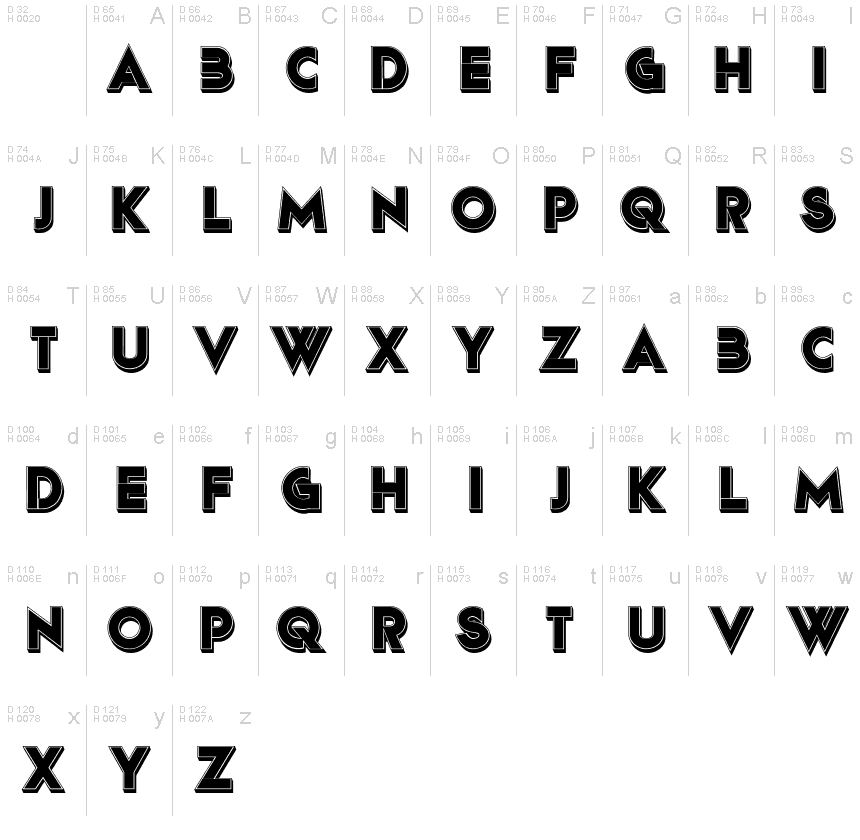
Epoca Regular
Epoca is an extra-bold sans serif font designed by Vladimir Nikolic. It's a resilient typeface with strong personality, perfect for creating eye-catching headlines, logos and posters. Its modern and minimalistic vibes make it suitable for a wide range of projects from futuristic designs to retro looks. Epoca is the perfect choice for captivating your audience!